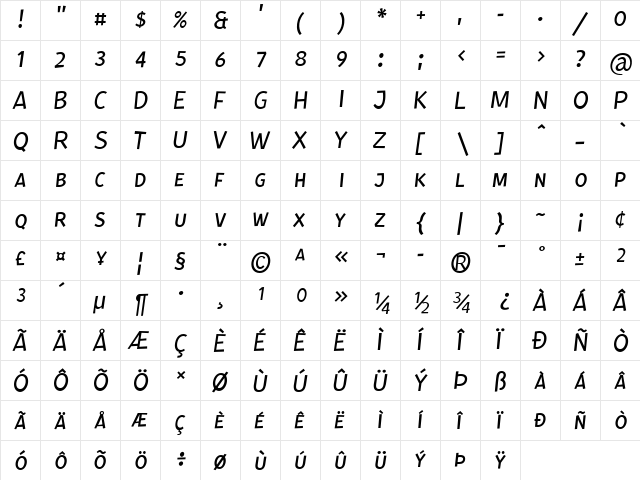
Kurri Island Caps Italics Thin Regular Font Preview
| Foundry | Mans Greback |
| Designer | Mans Greback |
Design Context for Kurri Island Caps Italics Thin Typeface
Kurri Island Caps Italics Thin offers clean, dependable letterforms without strong stylistic allegiance, making it a practical choice for designers who need flexibility. The slanted form adds forward momentum and visual energy. Its slender proportions lend an understated elegance to any composition.